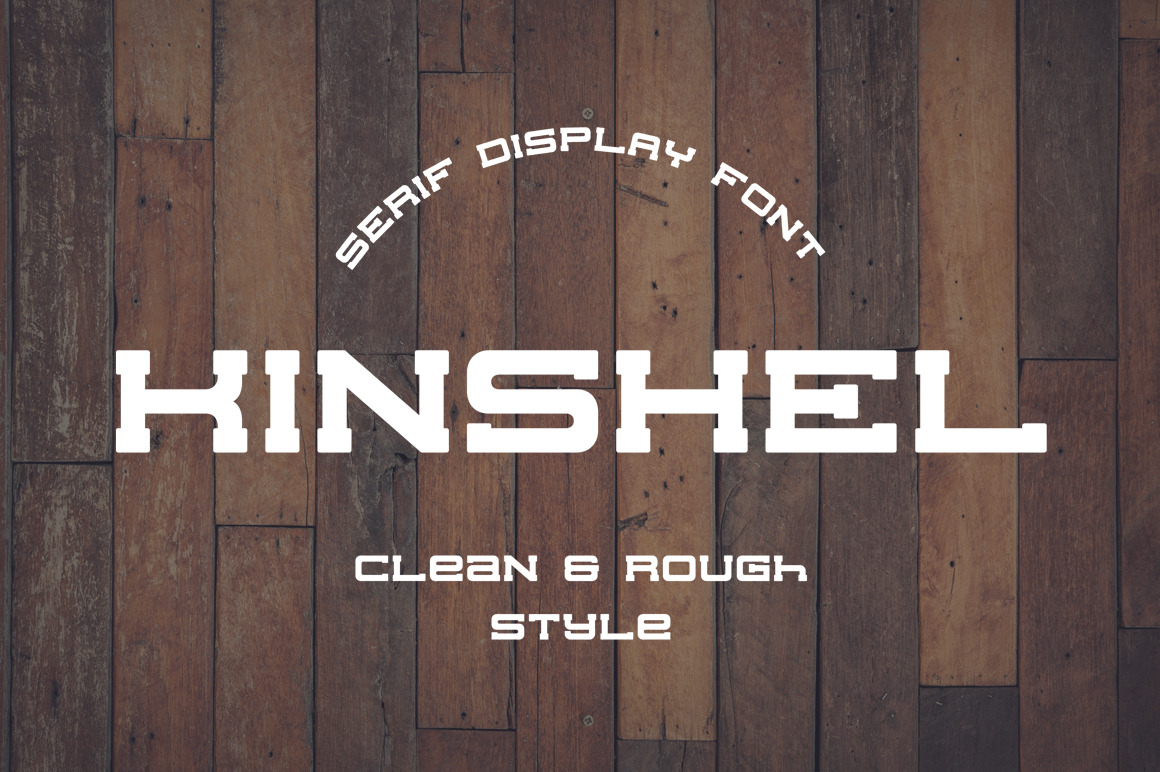
Kinshel Font
Kinshel is serif display font in two styles clean and rough.
Kinshel is inspired by vintage american sport typography. These font is great for vintage style logos, badges, labels, posters etc.
Font contains only basic western alphabet, numerics and special characters.